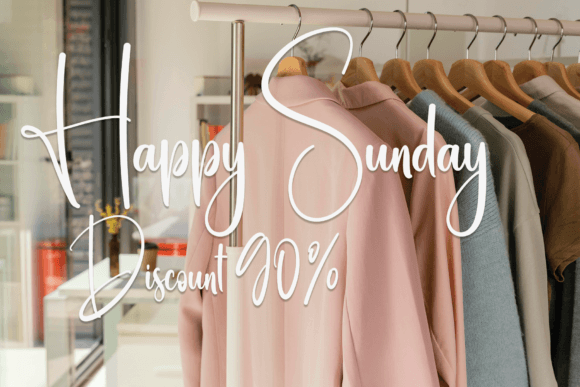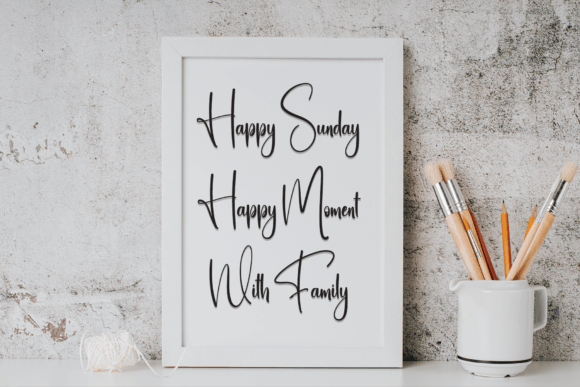
About Wizard Font
Wizard is an exquisite handwritten font, masterfully designed to become a true favorite. It maintains its classy calligraphic influences while feeling contemporary and fresh. Fall in love with it and bring your projects to the highest levels!